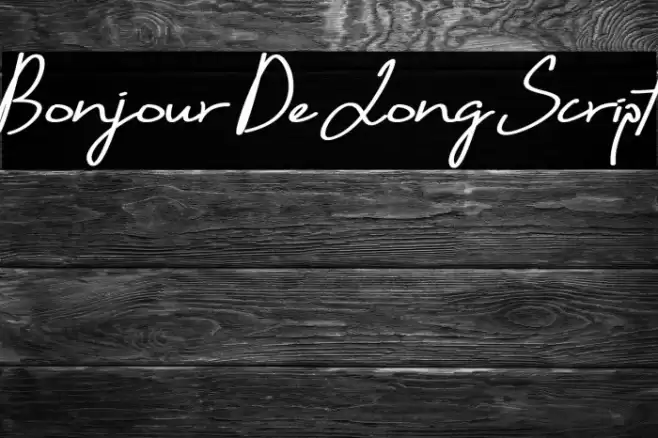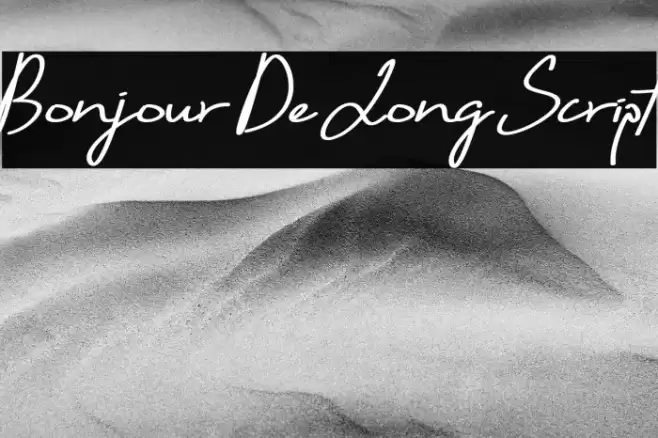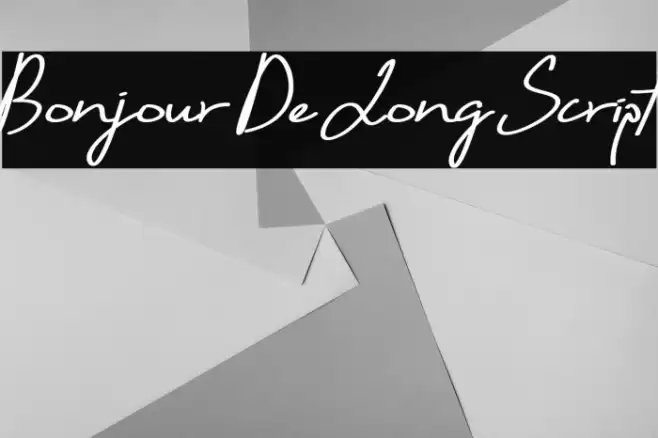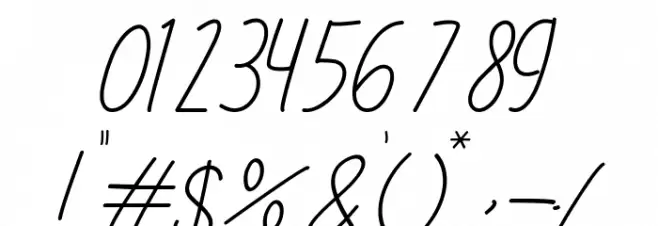
Bonjour De Jong Script Font
Bonjour De Jong Script Description
This script font exudes a lively and dynamic character, with its fluid and connected strokes that mimic the natural flow of handwriting. The uppercase letters are bold and slightly slanted, giving a sense of movement and energy. The lowercase letters maintain a consistent style, with elegant loops and curves that enhance the handwritten feel. The numerals are clear and legible, complementing the overall aesthetic. Special characters are thoughtfully designed to blend seamlessly with the rest of the font, ensuring versatility in various applications. The font's playful yet sophisticated style makes it suitable for creative projects that require a personal touch.
A lively script font with fluid, connected strokes and a handwritten feel from Regular fonts.